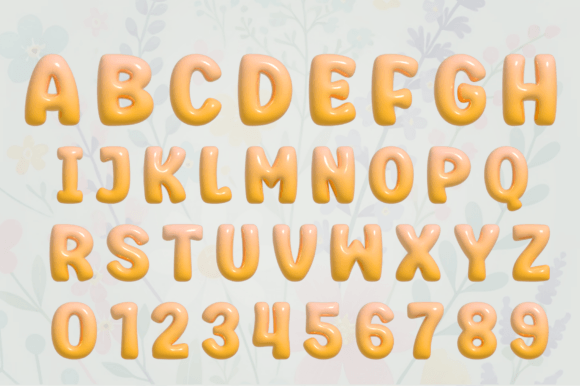
3d Spring Font
The “3D Spring Font” is a vibrant and playful font inspired by the beauty of springtime. Each letter is crafted in 3D style with soft pastel hues, and adorned with delicate floral decorations, making it perfect for seasonal projects, greeting cards, posters, and more.